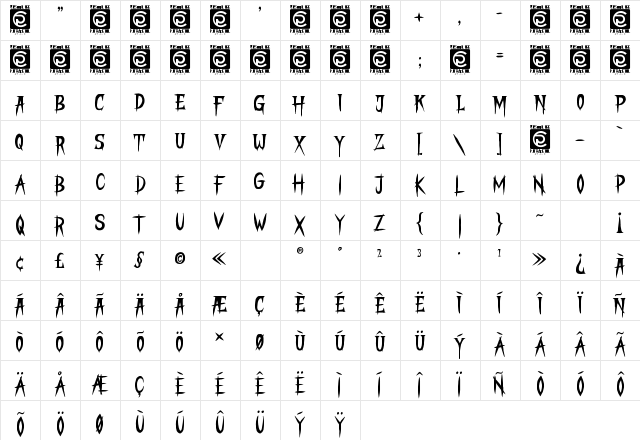
STRANGER CREATURE Regular
| Foundry | Putracetol Studio, Karanganyar. |
| Designer | Putra Novembria Candra Kusuma |
Design Context for STRANGER CREATURE Typeface
STRANGER CREATURE is a composed and adaptable typeface that performs quietly and consistently across a wide range of design contexts.